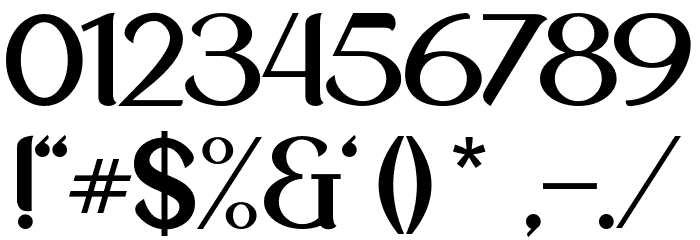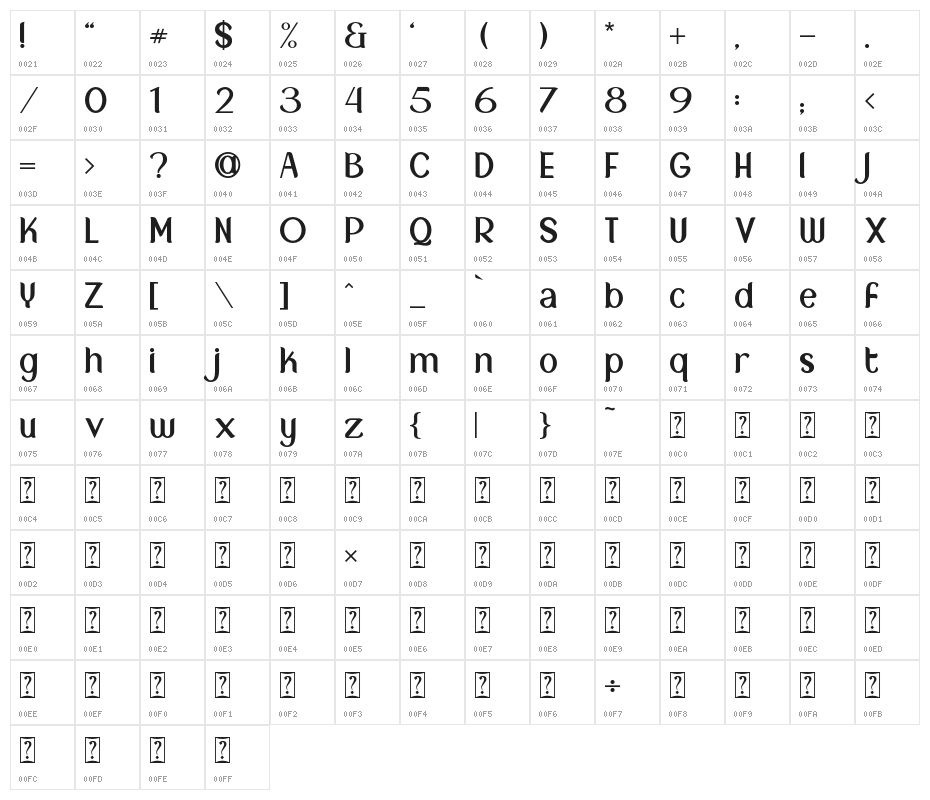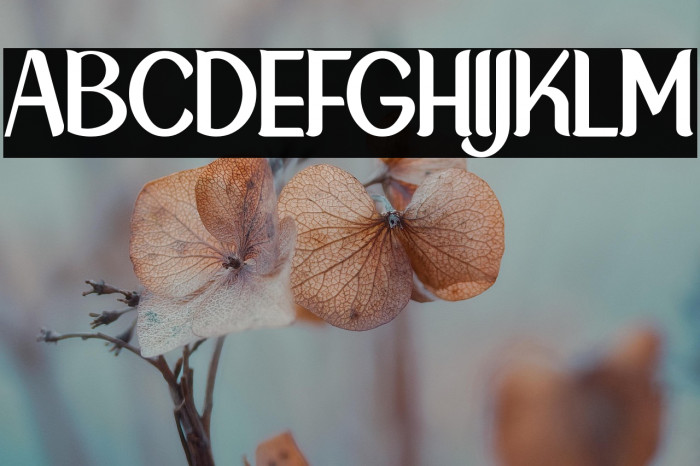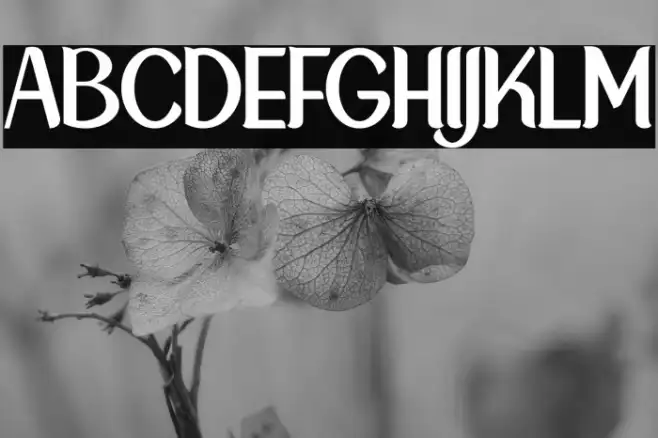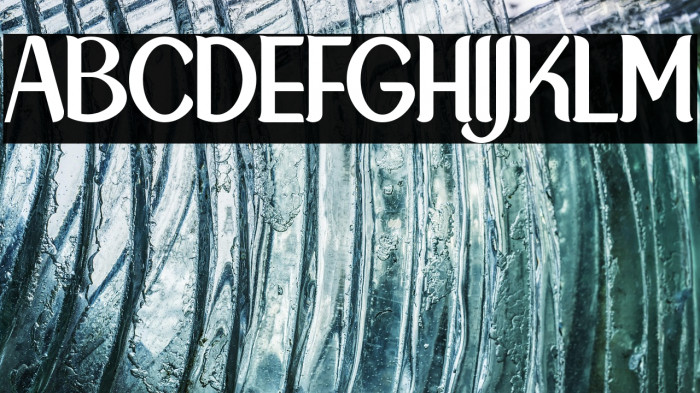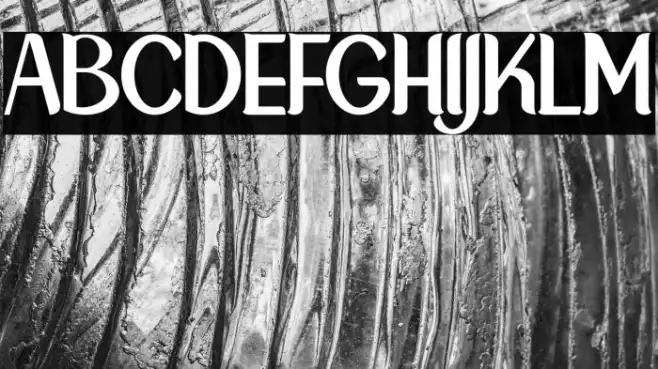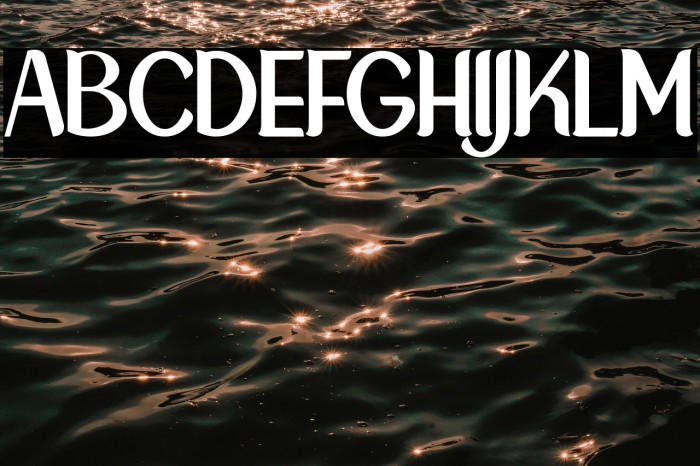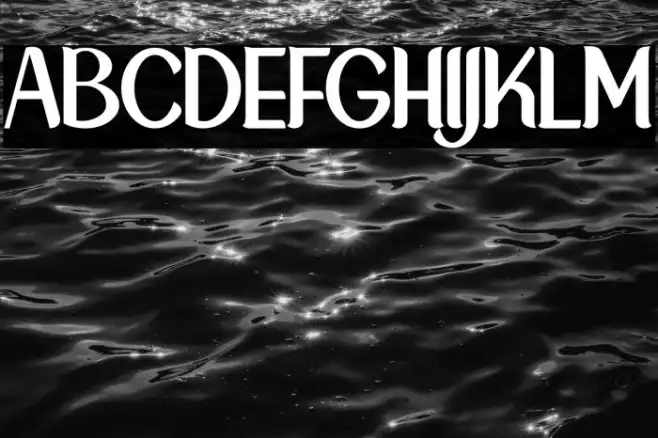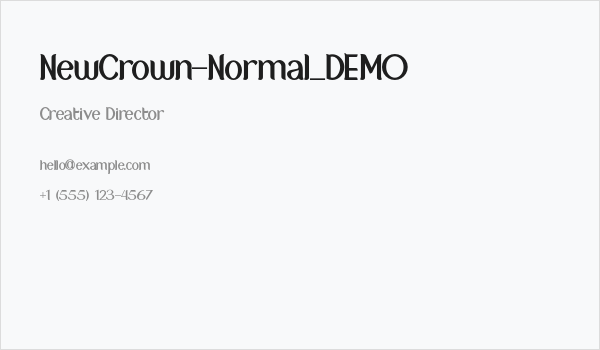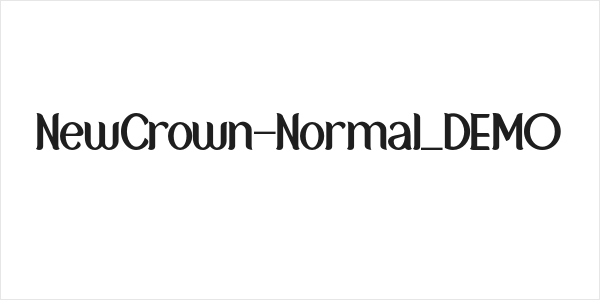
NewCrown-Normal_DEMO Font
NewCrown-Normal_DEMO Description
This font features a unique blend of modern and vintage styles, characterized by its bold and slightly condensed letterforms. The uppercase letters exhibit a strong presence with their thick strokes and subtle curves, while the lowercase letters maintain a consistent flow with rounded edges. The numerals are distinct and easily readable, complementing the overall aesthetic. Special characters are designed with a playful yet sophisticated touch, making them suitable for various design contexts. The font's high contrast in stroke thickness adds to its visual appeal, making it stand out in any application.
| Overall Style | Modern, Vintage |
| Proposed Projects | Ideal for branding, poster design, and editorial layouts where a strong visual impact is desired. |